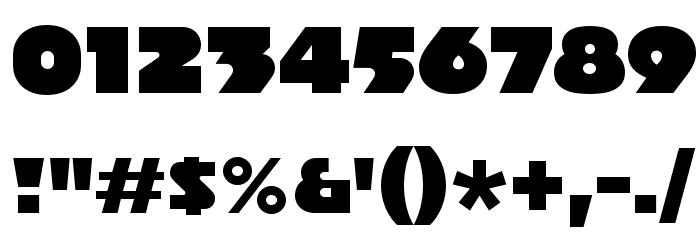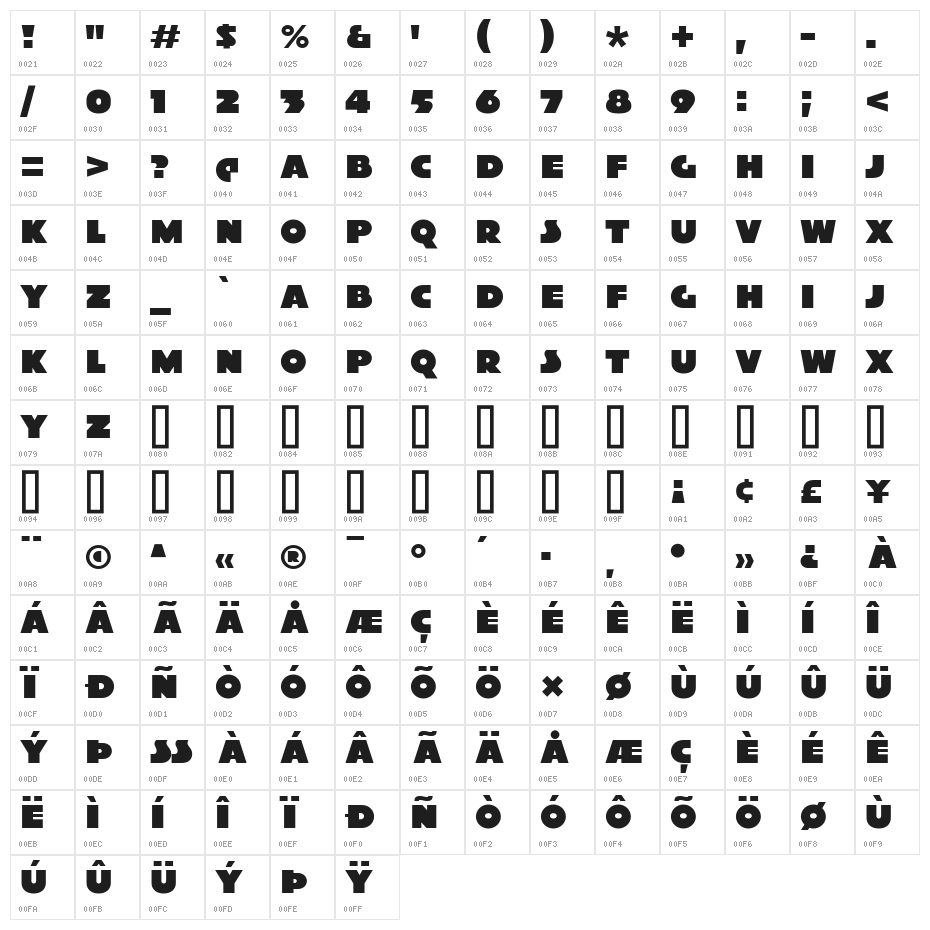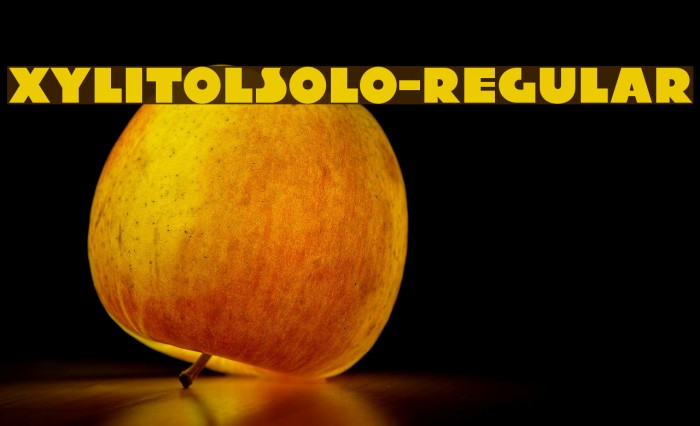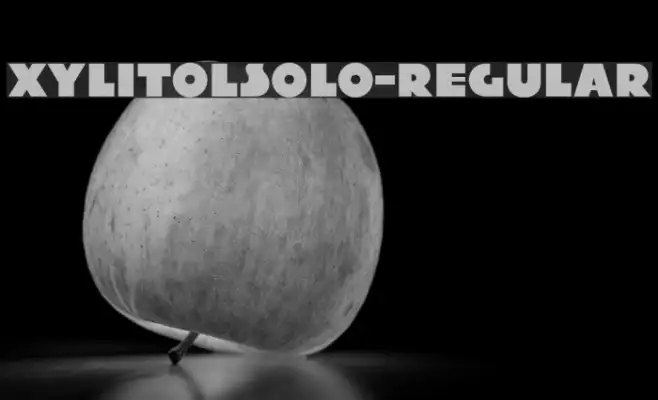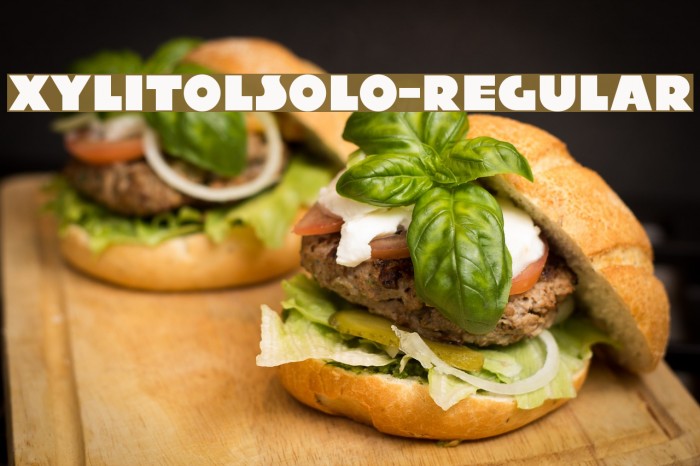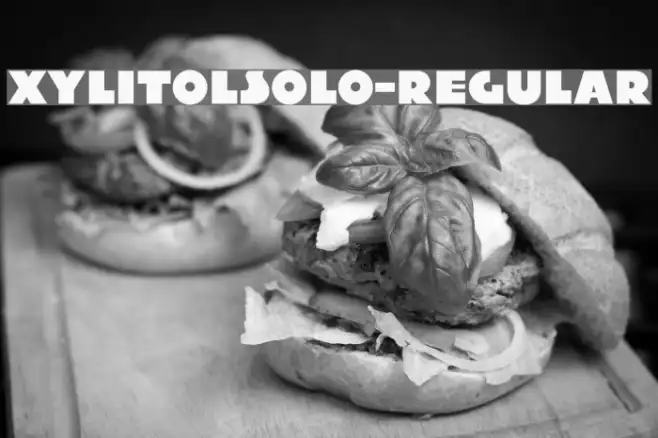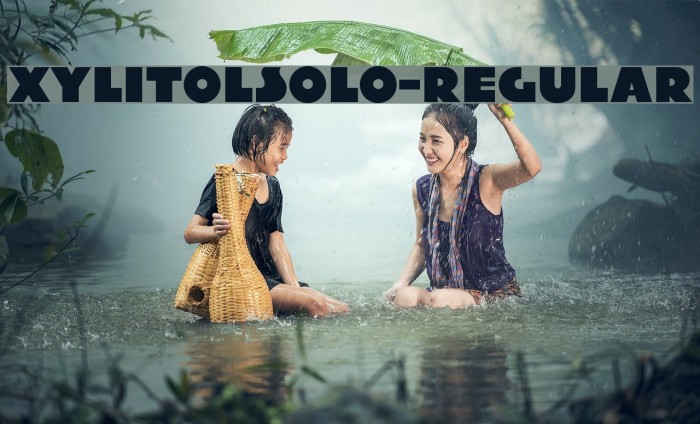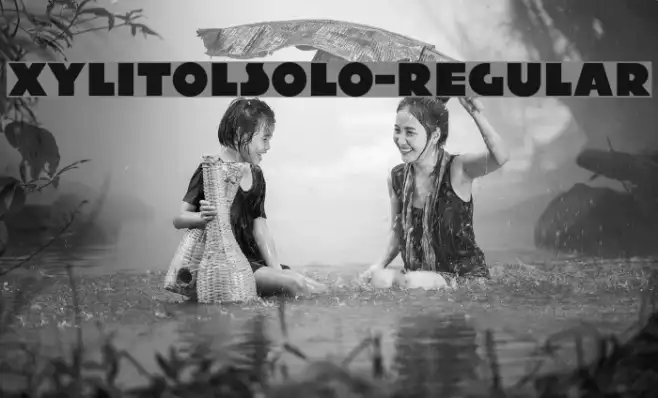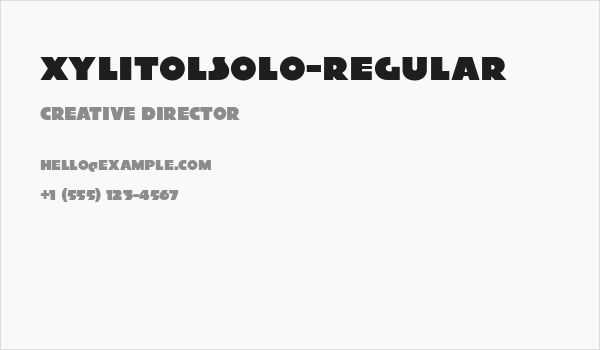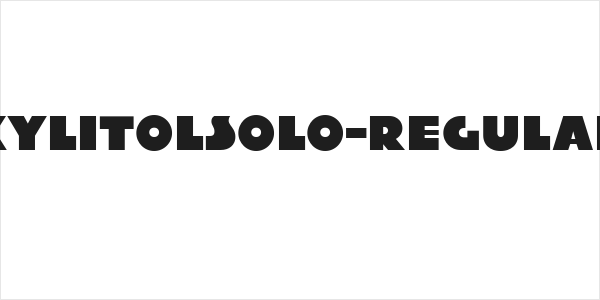
XylitolSolo-Regular Font
XylitolSolo-Regular Description
This bold and striking font features thick, geometric letterforms with a strong presence. The characters are designed with a modern, angular style, making them highly legible and impactful. The uppercase and lowercase letters maintain a consistent weight, contributing to a cohesive and uniform appearance. The numbers and special characters are equally bold, ensuring they stand out in any design. The font's overall aesthetic is both contemporary and versatile, suitable for a variety of creative applications.
| Proposed Projects | Ideal for branding, posters, headlines, and any project requiring a strong visual impact. |